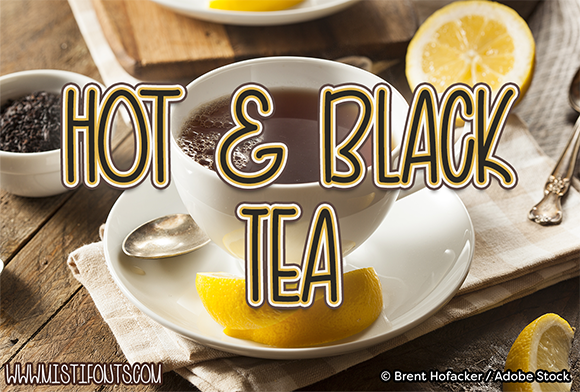
HomeScript FontsHot and Black Tea Font Script Fonts Hot and Black Tea Font FacebookXPinterestWhatsApp About Hot and Black Tea Font Hot & Black Tea is a handwriting font that is brewing with many possibilities for your projects! DOWNLOAD NOW People also explored Oscar Font Cherry Cream Soda Pro Hailey Font Olarwe Font Barlen Font Aynha Font Khansa Font Serival Sans Font Fluster Font 329 0 TagsHot and Black Tea Font Previous articleDecalled Script FontNext articleChella Font LEAVE A REPLY Cancel reply Comment: Please enter your comment! Name:* Please enter your name here Email:* You have entered an incorrect email address! Please enter your email address here Website: Save my name, email, and website in this browser for the next time I comment. Personal Use Free Cinderella Personal Use Free Read more about this font Hatchill Personal Use Free Read more about this font Heart Personal Use Free Read more about this font Groomer Personal Use Free Read more about this font BLOG Where to Buy American Fonts Online in 2024 Where to Buy American Fonts Online: The Ultimate Guide for 2024 Looking for the perfect American font to elevate your design projects? You're in the... How to Install and Use Fonts on Windows, macOS, and Web Projects Top 10 Handwritten Fonts That Elevate Your Designs Free vs Paid Fonts: Why Investing in Premium Fonts Is Worth It